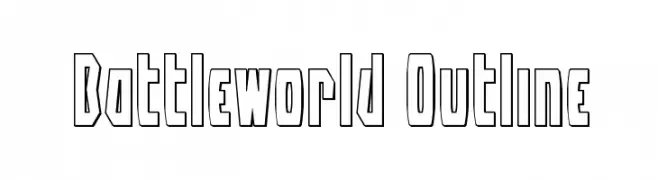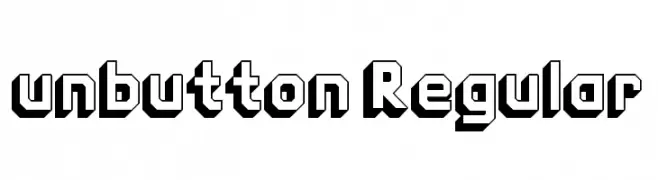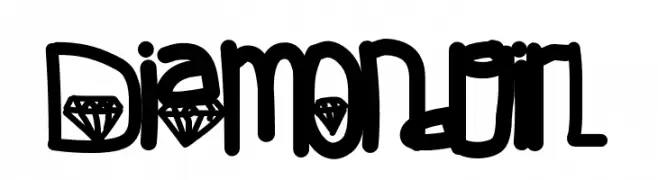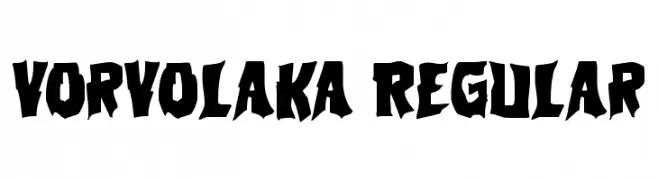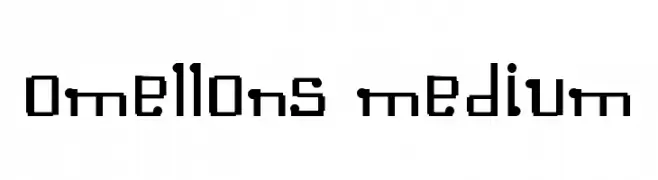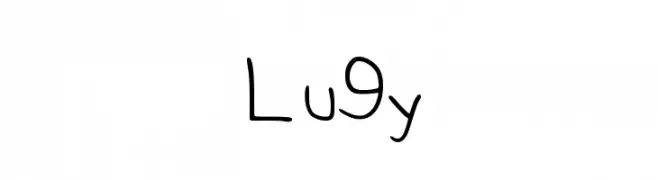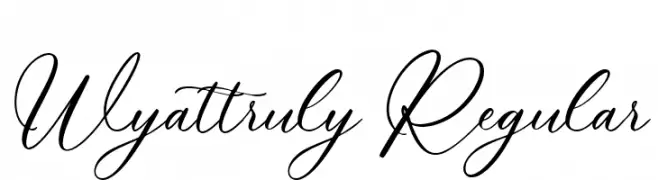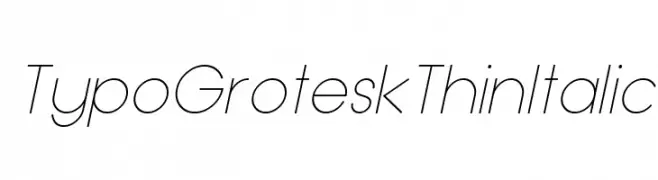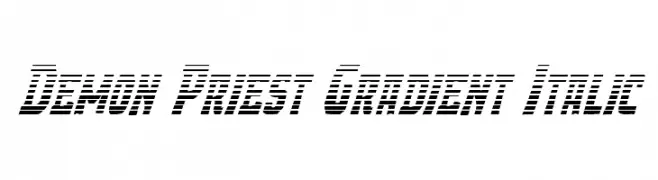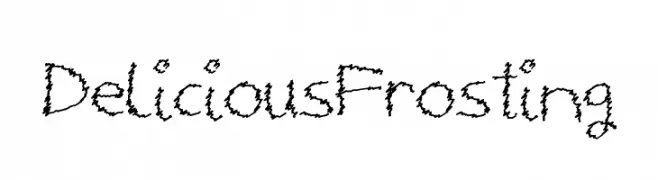
A bold, three-dimensional font with geometric and angular lines.
A bold, 3D geometric font with a strong shadow effect.
A bold, hand-drawn font with playful diamond motifs and a whimsical style.
A modern, elegant handwritten font with fluid, cursive letterforms.
A bold, jagged font with a gothic, horror-inspired style.
A playful, rounded font with a whimsical and creative style.
A playful, farm-themed decorative font with cow motifs and italic styling.
A playful, handwritten font with a casual and friendly style.
A bold and abstract collection of geometric shapes and symbols.
An elegant script font with flowing, interconnected characters and a sophisticated flair.
A playful, hand-drawn comic-style font with bold, rounded characters.
A sleek, modern, thin italic font with elongated letterforms.
A bold, textured font with a shattered glass effect.
A bold, italicized font with a striped gradient effect and a modern, dynamic style.
A playful, hand-drawn font with a frosting-like, textured appearance.
A pictogram-based decorative font with assorted object silhouettes.
A bold, brush-style font with dynamic, hand-drawn characteristics.
A playful, bold font with rounded, thick letters and a whimsical style.
A playful, handwritten font with consistent stroke thickness and rounded edges.
Playful handwritten font with tall, narrow letters.
Invalid font with placeholder symbols.
A bold, 3D-effect font with a modern and playful style.
An ornate and decorative font with intricate flourishes, perfect for elegant designs.